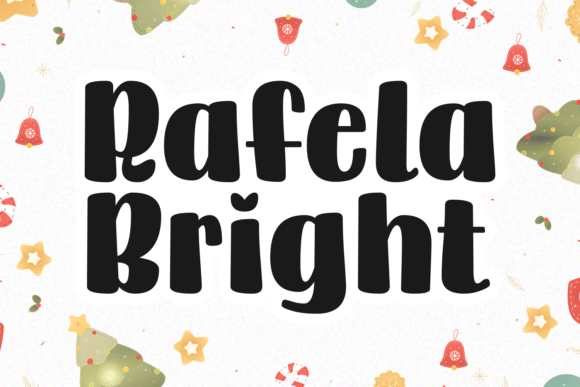
Introducing Rafela Bright Font, the ultimate font for all your poster needs! Created by the talented team at Creative Fabrica Fonts, this cute and chunky display font is sure to catch the attention of anyone who lays eyes on it. With its thick and beautiful characters, Rafela Bright is the perfect choice for a variety of creative projects.
Imagine the impact you can make with this font! Whether you're designing eye-catching headlines, captivating book covers, attention-grabbing posters, or even unique fabric prints, Rafela Bright Font will elevate your creations to a whole new level. Its bold and playful nature will instantly grab the viewer's attention and leave a lasting impression.
The charming aesthetics of Rafela Bright Font are truly one-of-a-kind. Its captivating design exudes a sense of joy and whimsy, instantly evoking positive emotions. Each letter is carefully crafted to showcase a unique personality, adding a touch of creativity and originality to your projects.
But that's not all! Rafela Bright Font is not just visually appealing, it's also incredibly versatile. Whether you're working on a fun and vibrant project or aiming for a more sophisticated and elegant look, this font can effortlessly adapt to your creative vision. Its flexibility allows you to experiment with different styles, ensuring that your designs stand out from the crowd.